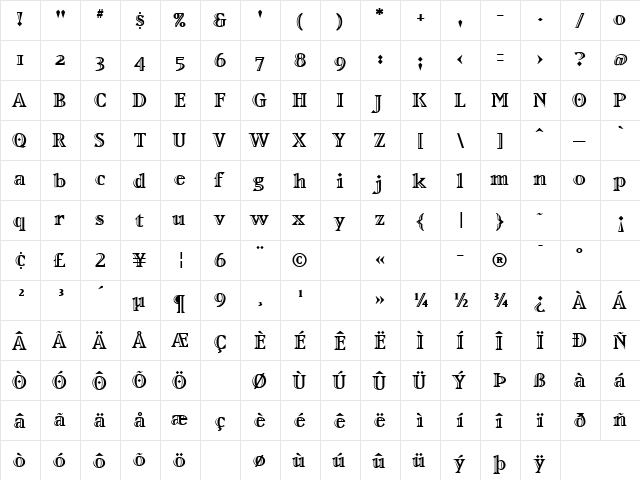
MatrixInlineExtraBoldOldstyle Bold
Design Context for MatrixInlineExtraBoldOldstyle Typeface
MatrixInlineExtraBoldOldstyle is built around its visual character rather than neutral utility — its distinctive forms are designed to make an impression at display sizes. Its bold stroke weight gives it real presence on the page.
Font Pairing: Pair with a clean neutral sans-serif for body copy to let MatrixInlineExtraBoldOldstyle's character lead without overwhelming the composition.
Pro Tip: Use MatrixInlineExtraBoldOldstyle exclusively at display sizes — it was designed to be seen, not read at length. Let a neutral companion handle body copy.